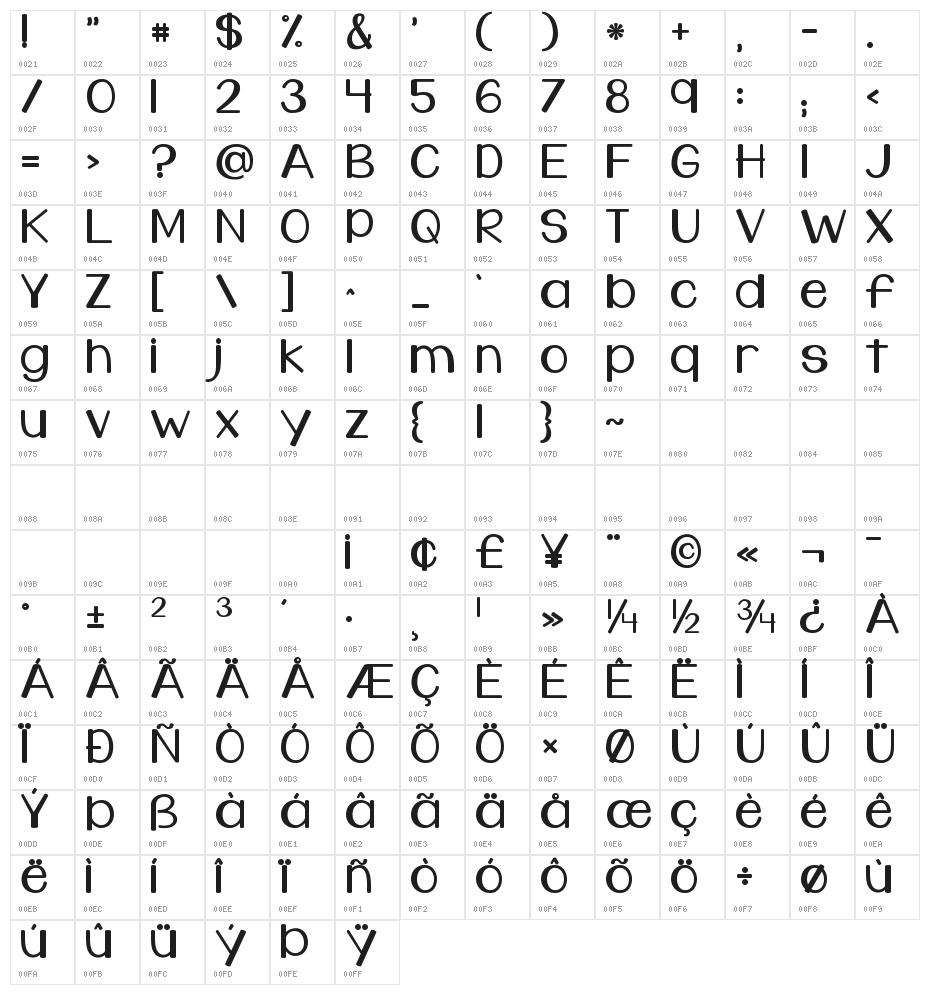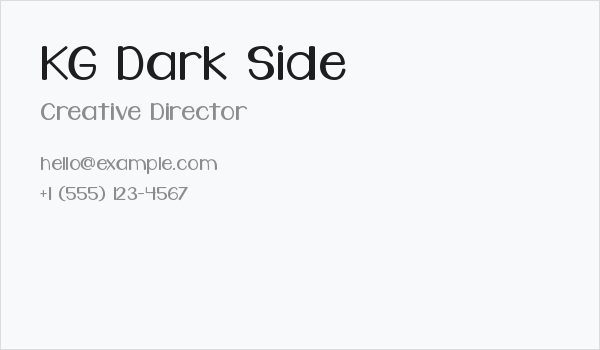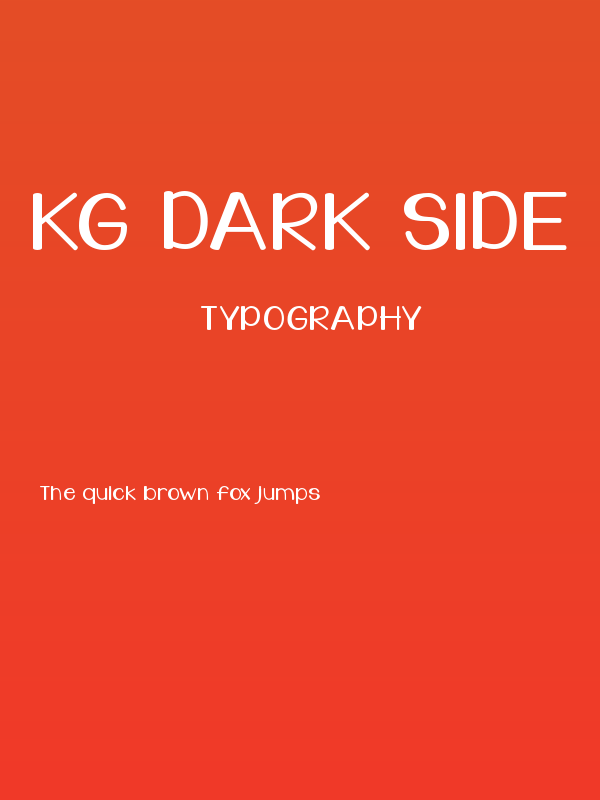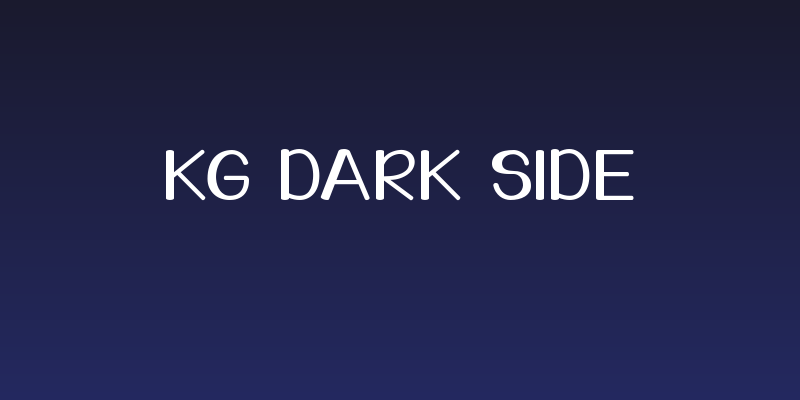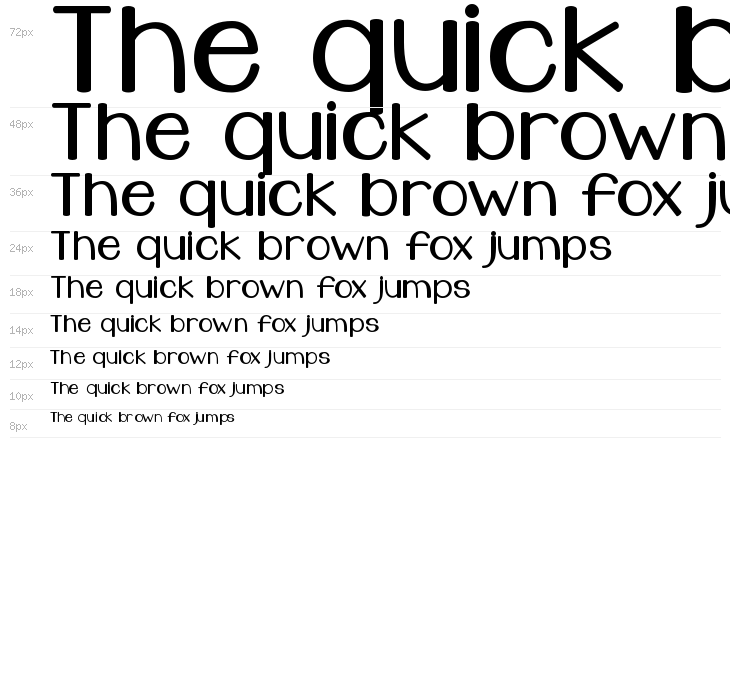
KG Dark Side Font
KG Dark Side Description
This font features a clean and modern sans-serif design with smooth curves and a consistent stroke width. The uppercase letters are bold and impactful, while the lowercase letters maintain a friendly and approachable appearance. The numerals are clear and easy to read, making them suitable for both digital and print media. Special characters are well-defined, adding versatility to the font's usage. The overall design is balanced, providing a harmonious look across different text sizes.
| Proposed Projects | Ideal for branding, advertising, web design, and editorial projects. |